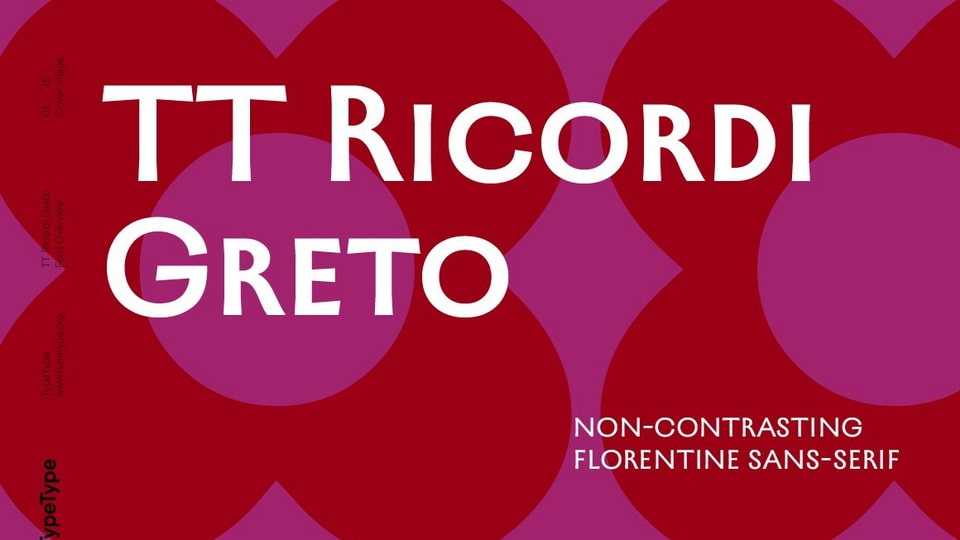
Download TT Ricordi Greto font, an original experimental project, inspired by a floor plaque dating from 1423 found in the Basilica di Santa Croce, Florence. TT Ricordi Greto looks new and modern, but at the same time has artifacts in the source that could be exaggerated to the maximum.